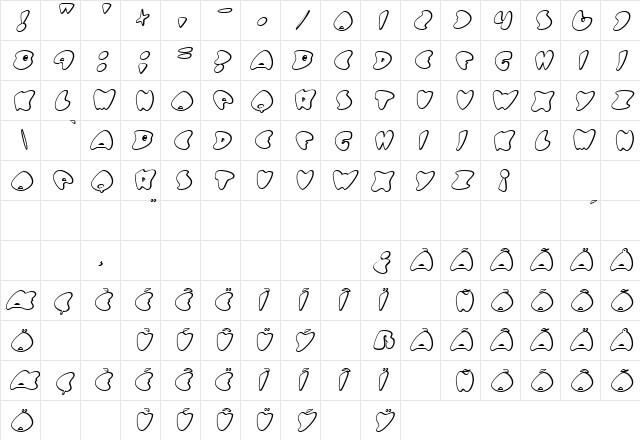
Got No Heart Regular
Design Context for Got No Heart
Got No Heart is a composed and adaptable typeface that performs quietly and consistently across a wide range of design contexts.